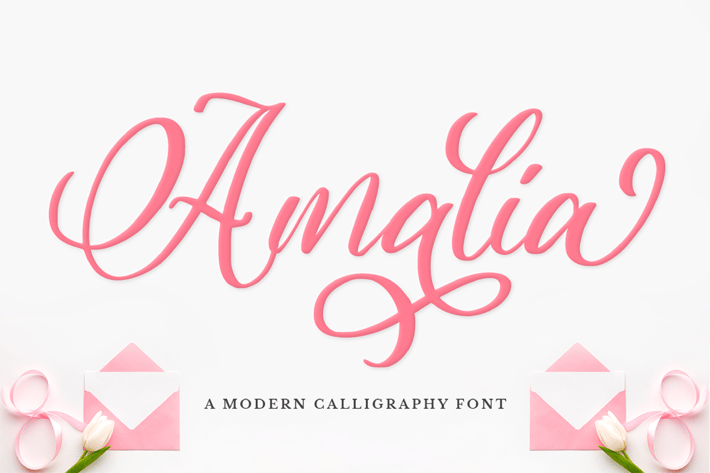
Modern Calligraphy Font
Want to impress your guests with stunning invitations? Maybe create event posters that will inspire the audience? It all starts with the right font.
Introducing Amalia– A Modern Calligraphy Font.
A blend of elegance and refinement, this font gives a whole different note to your printed cards, invitations, and promotions. On top of this, it’s fantastic for packaging and clothing, as well as for any project that requires charm and style.
Multilingual & Ligature Support
Full sets of Punctuation and Numerals